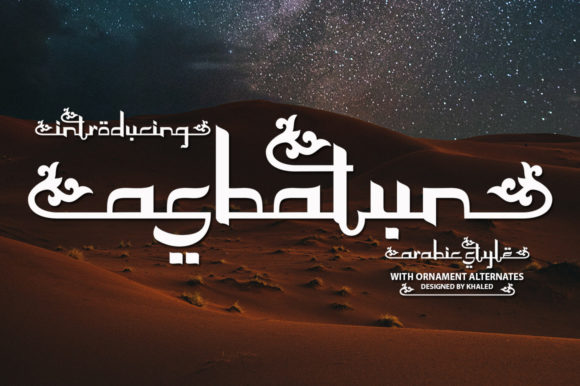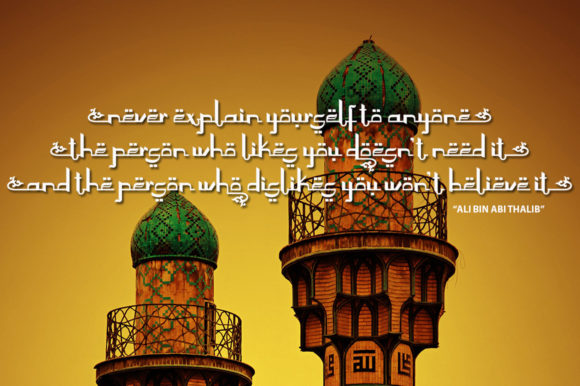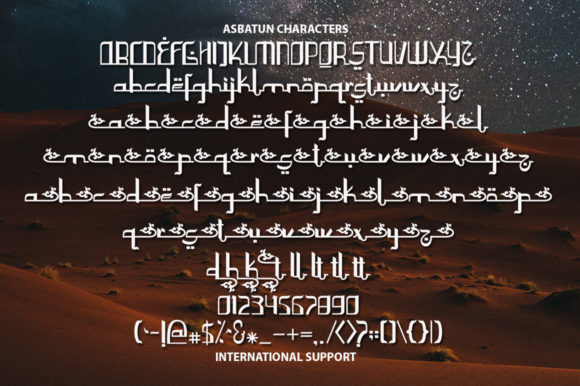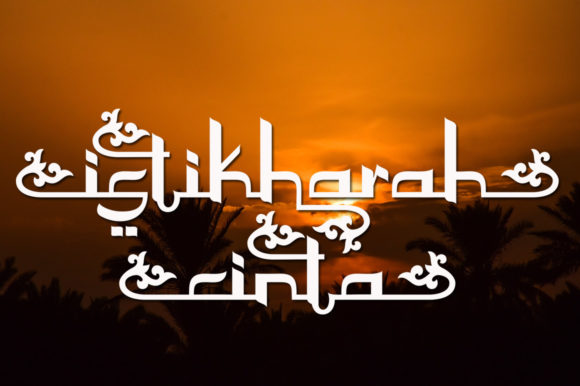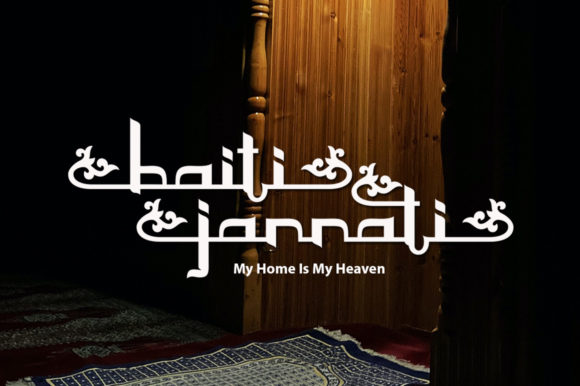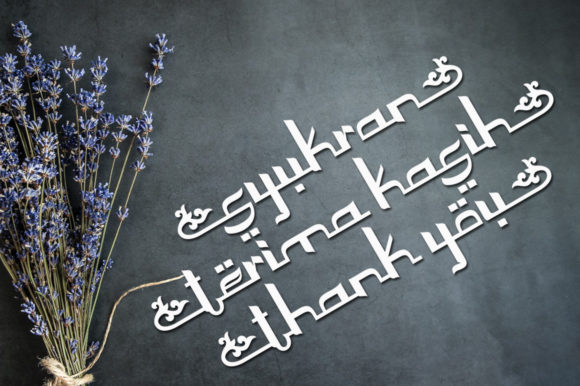
Asbatun Font
About Asbatun Font
Asbatun is an Arabic styled calligraphy font. Designed expertly to make your project more authentic, unique and modern, this font can be used for various projects such as: greeting cards, branding, logos, screen printing, and so on. This font is PUA encoded which means you can access all of the glyphs and swashes with ease!